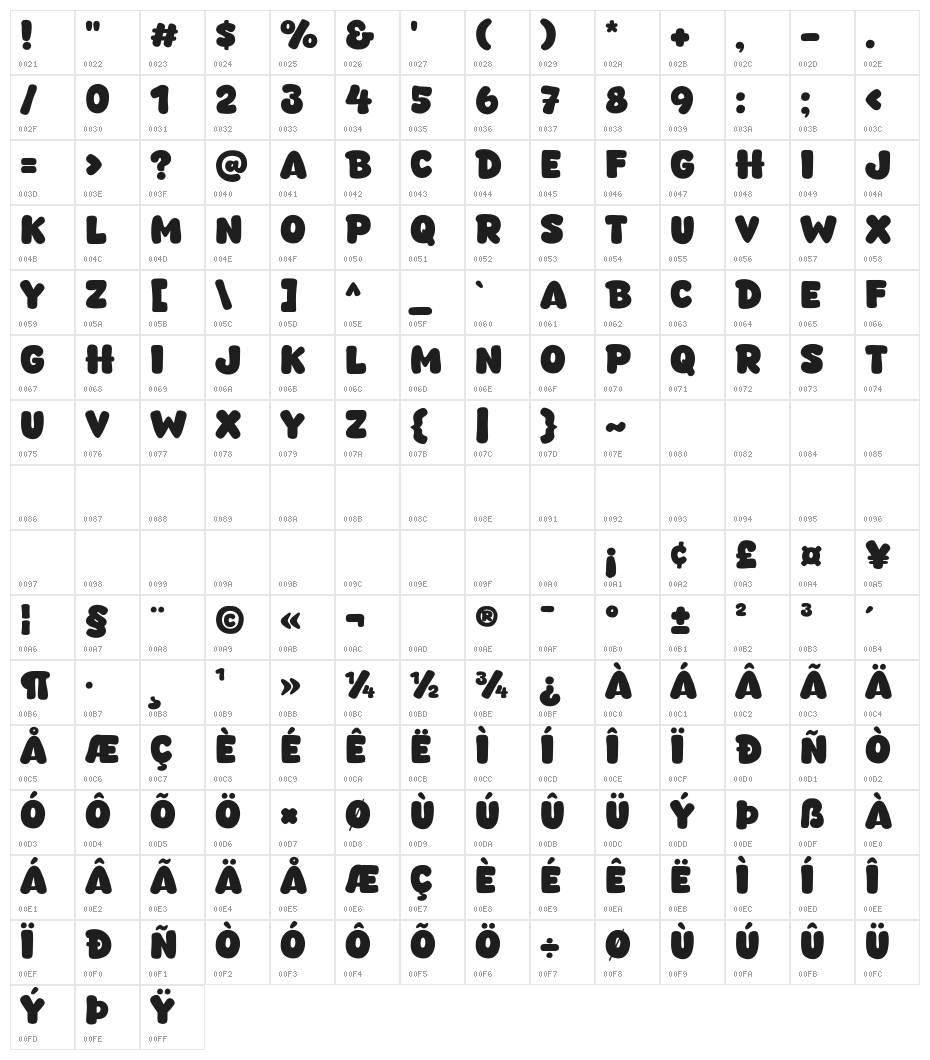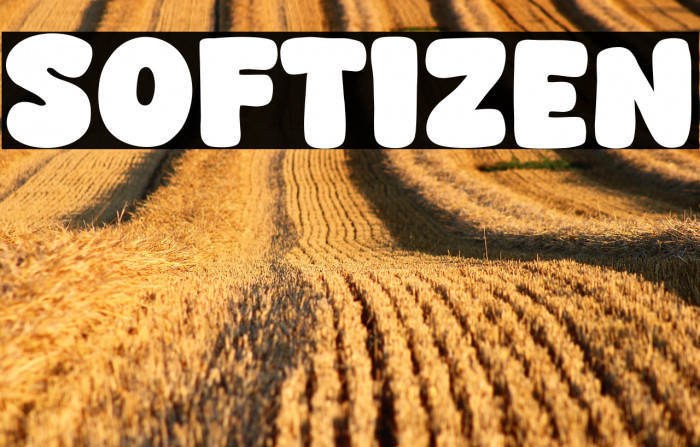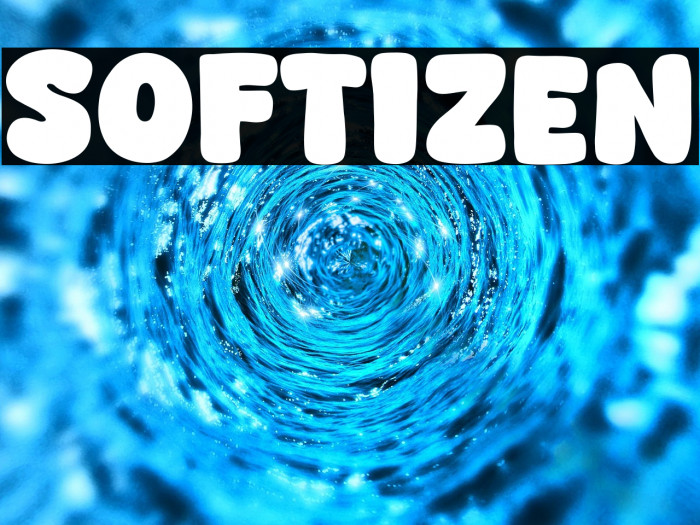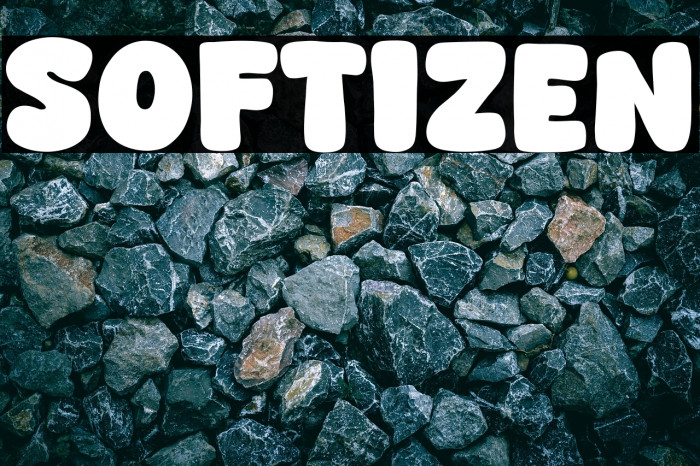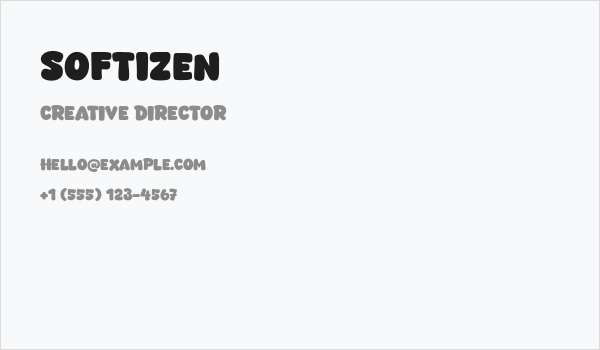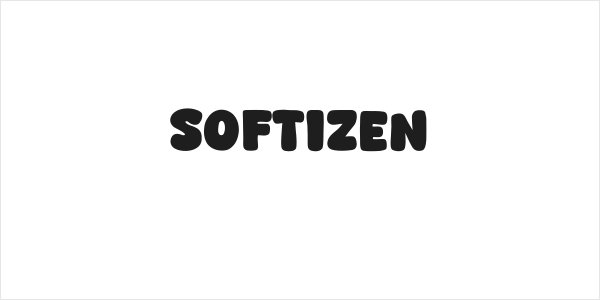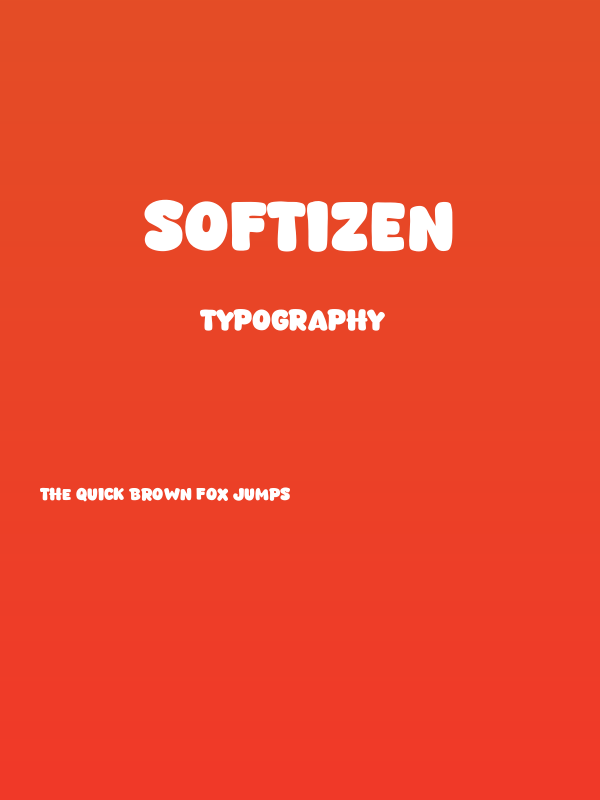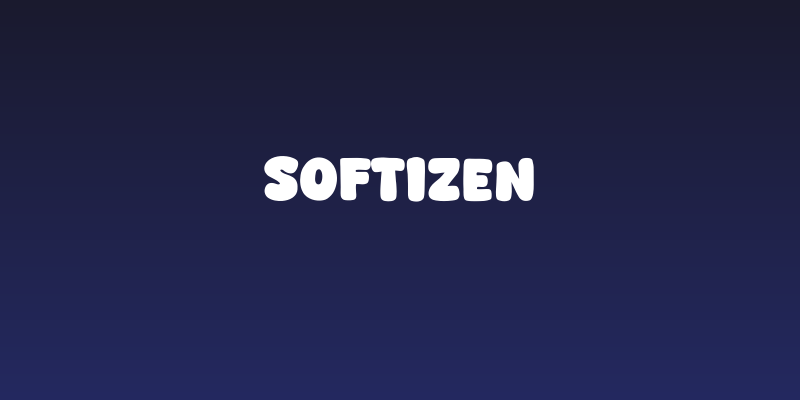
Softizen Font
Softizen Description
This playful and bold font features rounded, bubble-like characters that convey a sense of fun and approachability. The letters are uniformly thick, with a consistent stroke width that gives the font a cohesive and solid appearance. The rounded edges and lack of sharp angles contribute to its friendly and informal style, making it ideal for projects that aim to be engaging and lighthearted. The font maintains a consistent height and width across both uppercase and lowercase letters, ensuring readability and balance. Its distinctive style is further enhanced by the wide spacing between characters, which adds to its legibility and charm.
| Overall Style | Playful |
| Proposed Projects | Ideal for children's books, playful branding, party invitations, and casual social media graphics. |